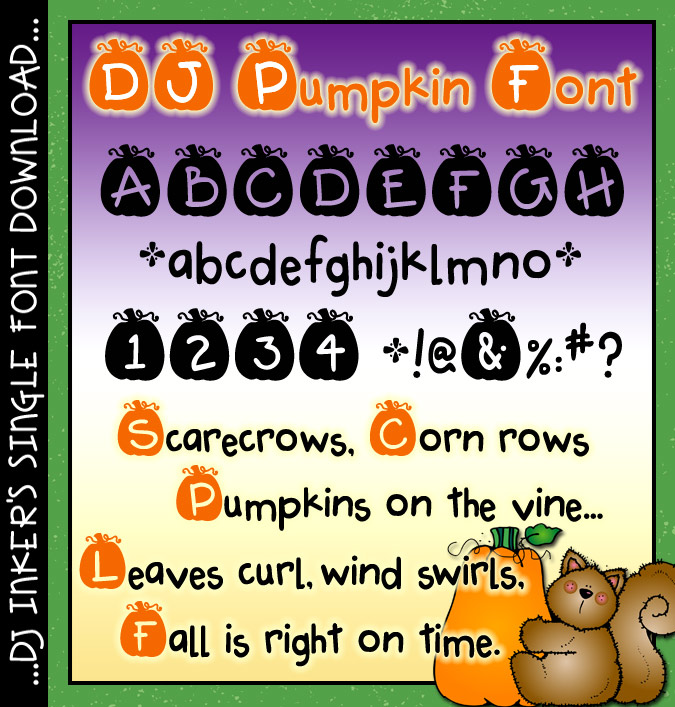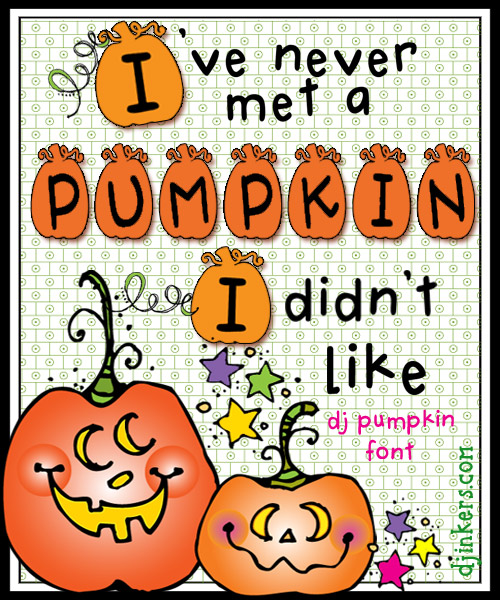
Get ready to carve-up some fall smiles with our cute DJ Pumpkin font! This playful lettering will be great for headlining your text on projects for Halloween, Thanksgiving, or harvest time.